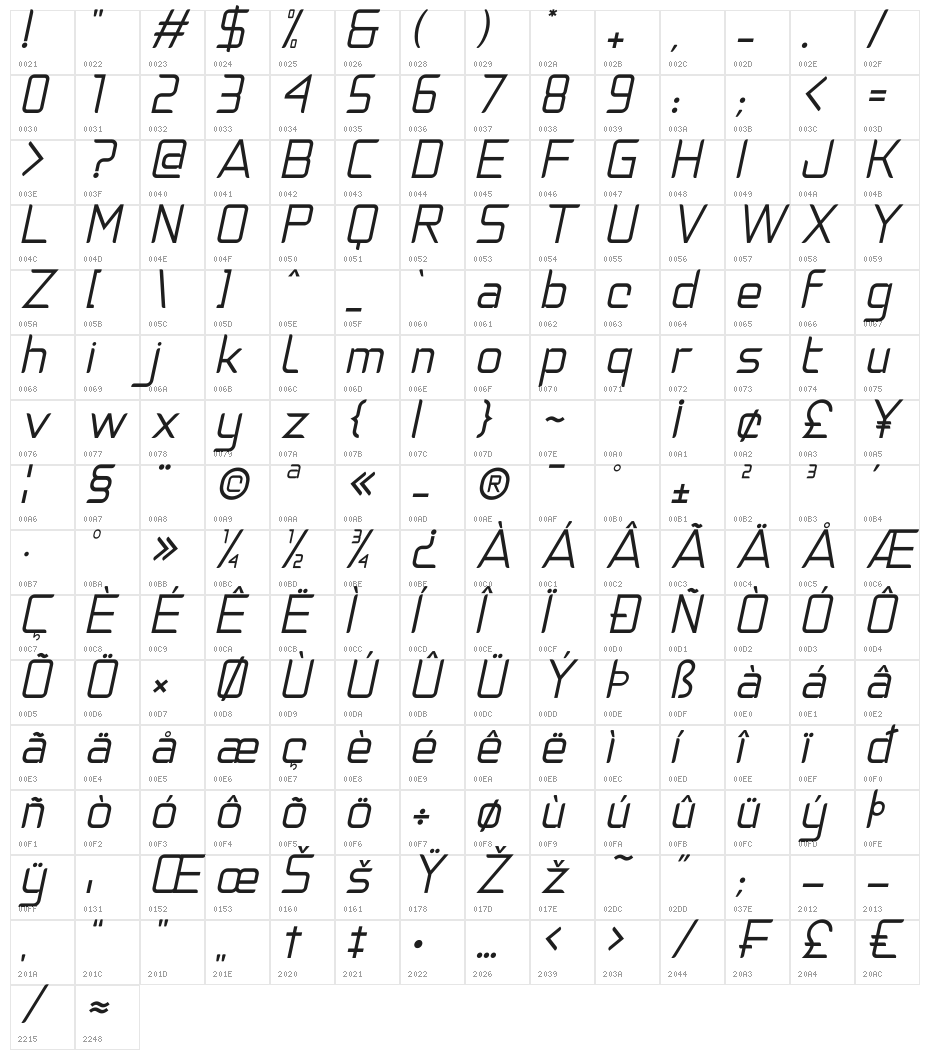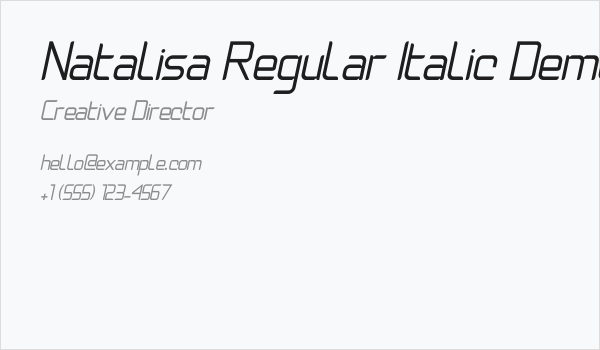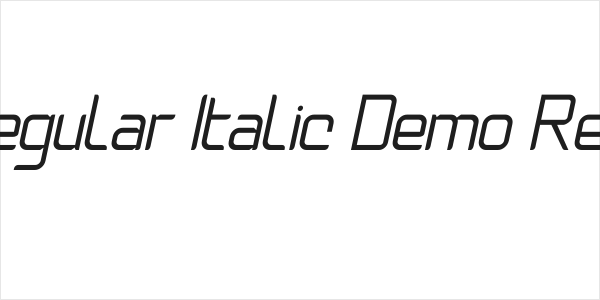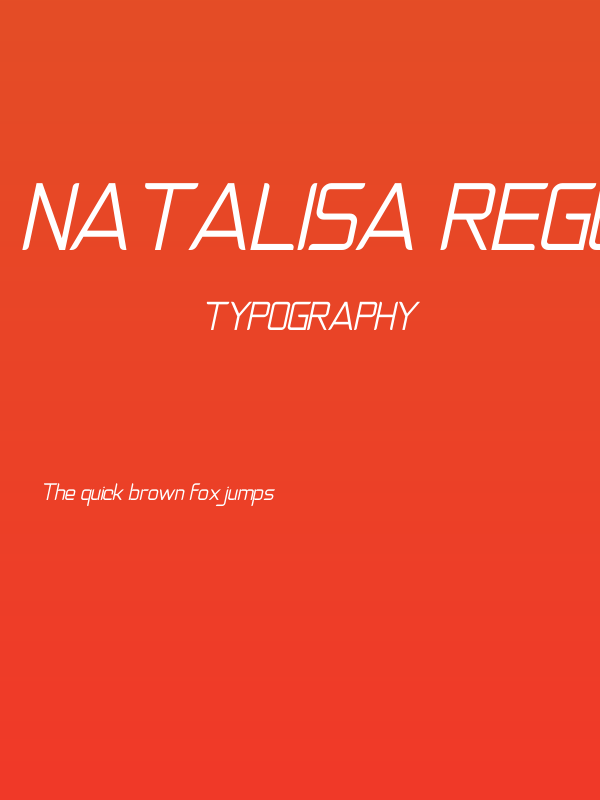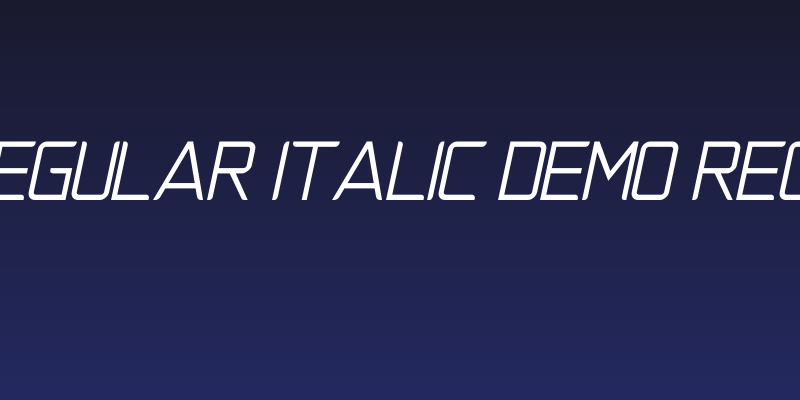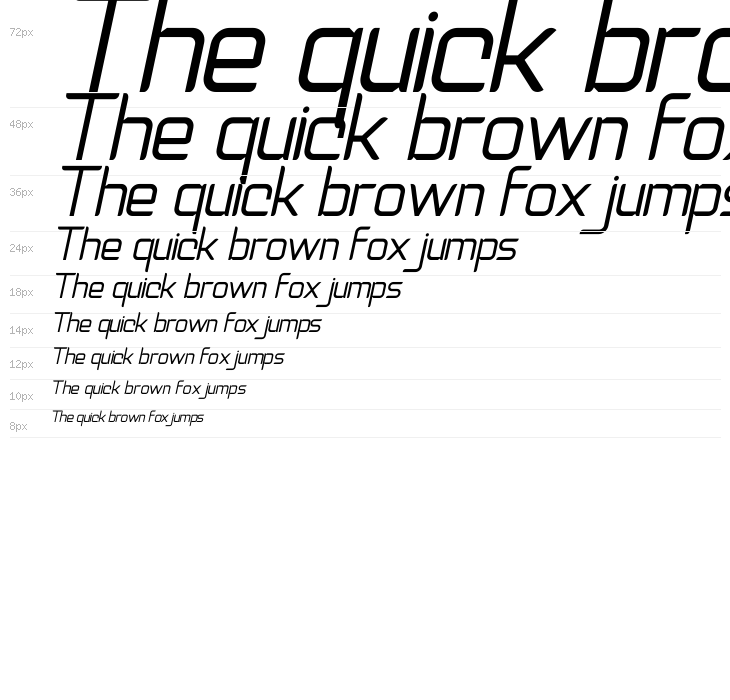
Natalisa Regular Italic Demo Regular Italic Font
Natalisa Regular Italic Demo Regular Italic Description
This font features a sleek, modern design with an italicized style that gives it a dynamic and forward-leaning appearance. The characters are elongated with a slight slant, creating a sense of motion and fluidity. The strokes are consistent in thickness, providing a uniform look across all characters. The uppercase and lowercase letters maintain a cohesive style, with rounded edges that soften the overall appearance. The numerals are distinct and clear, making them easily readable. Special characters are well-integrated, matching the font's overall aesthetic. This font is ideal for projects that require a contemporary and stylish touch.
Natalisa
| Use Case | Headlines, Logos, Digital Media |
| Proposed Projects | Ideal for branding, advertising, and digital media projects that require a modern and stylish look. |